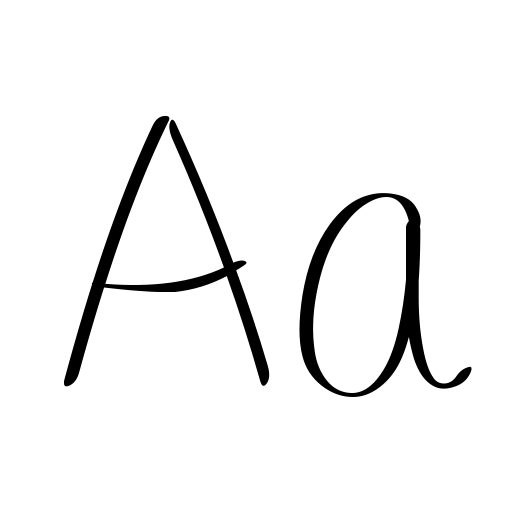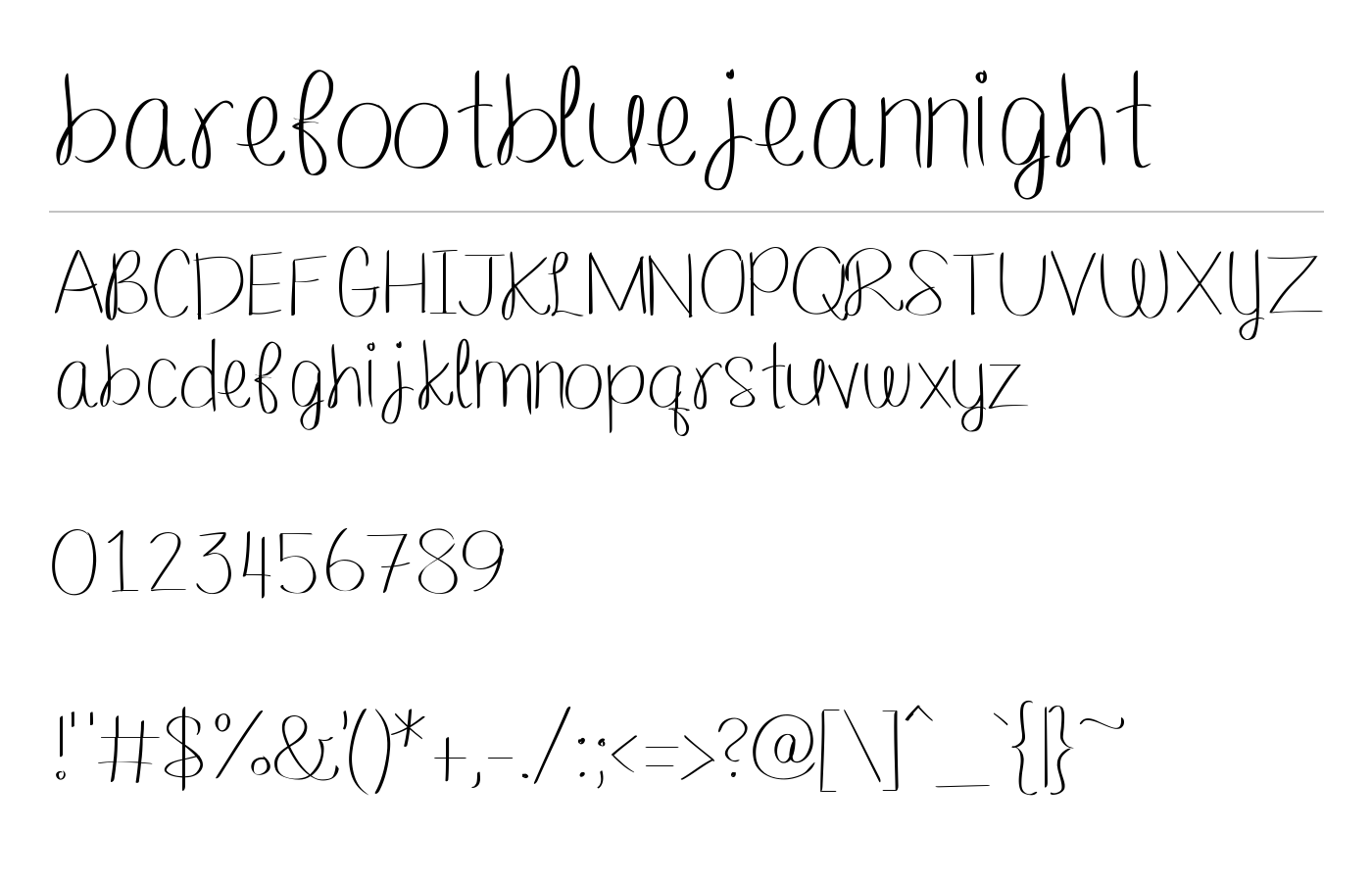
Barefootbluejeannight is a whimsical, hand-drawn sans serif font characterized by its tall, slender letterforms and delicate, uneven strokes that capture a playful and casual spirit. Its thin weight and irregular shapes give it a friendly, informal feel, making it ideal for creative projects, children’s books, invitations, and branding that seeks a personal, approachable touch. This font works best in headlines or short text where its unique personality can shine without compromising readability.
barefootbluejeannight Font